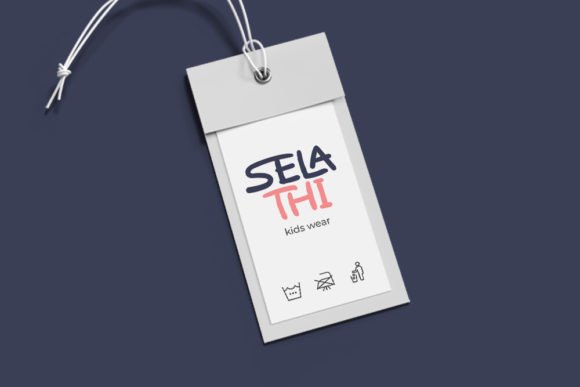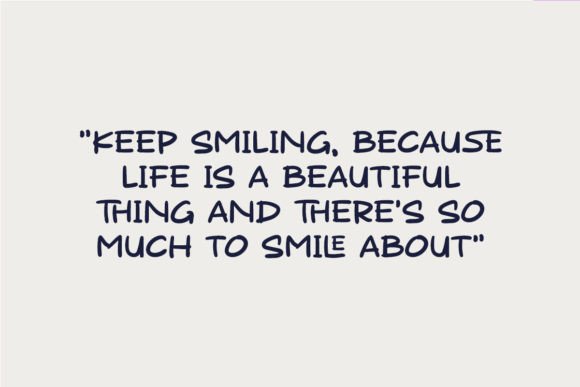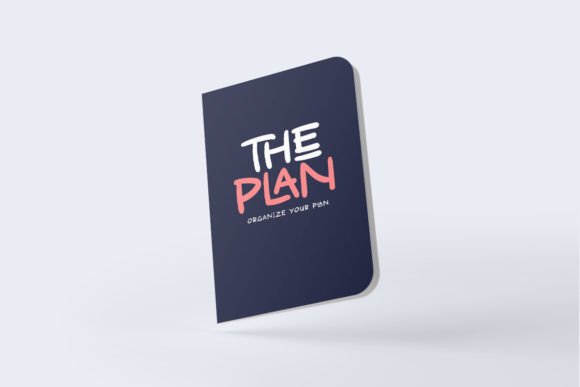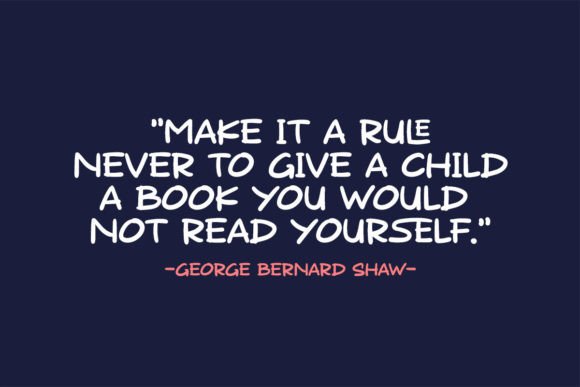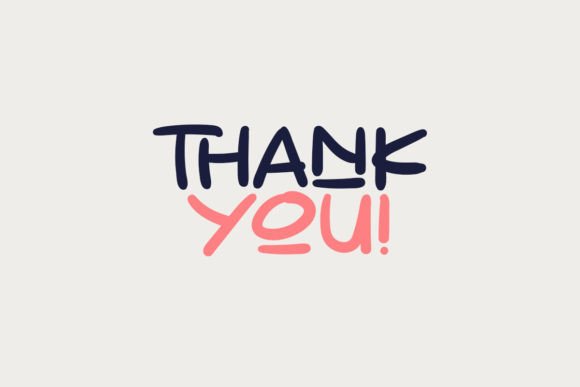
Introduction to Selathi Font
Selathi is a playful and stylish display font that adds a delightful and whimsical touch to your designs.
With its unique letterforms and charming character, whether youโre creating childrenโs illustrations, packaging, or social media graphics, Selathi brings personality and vibrancy to your designs, making them visually captivating and engaging Selathi is also equipped with alternates and ligatures that make this font attractive.